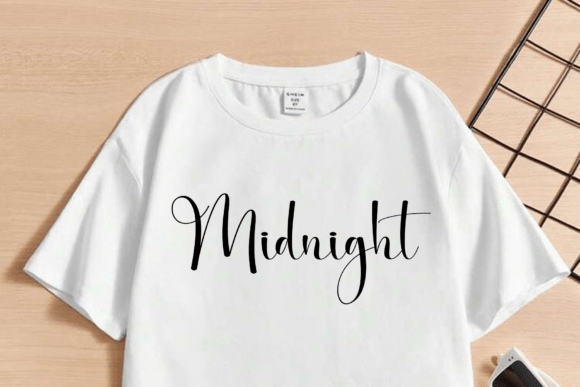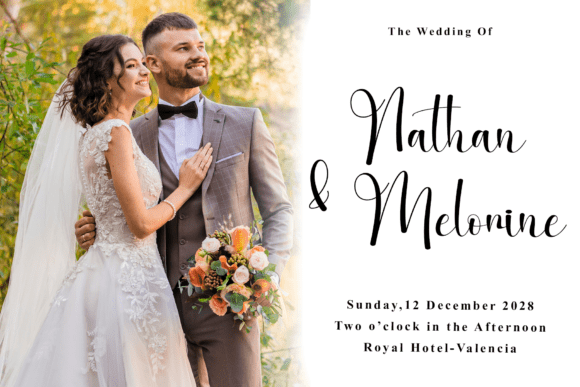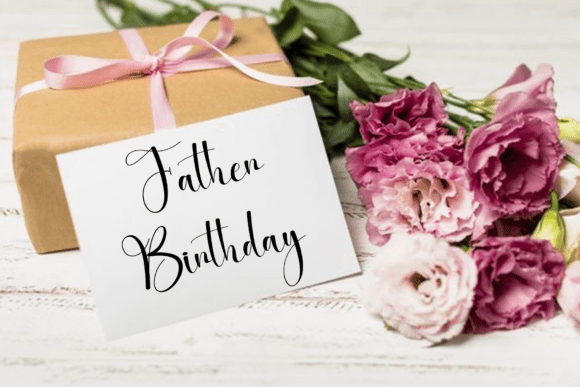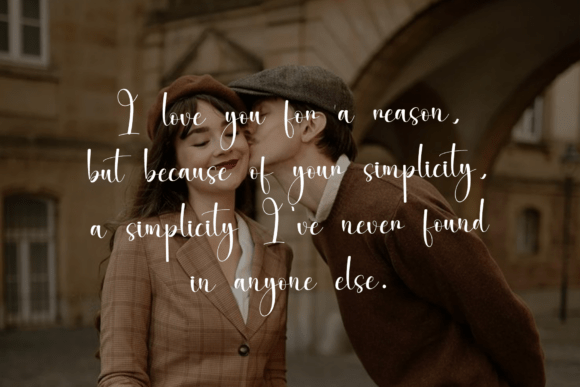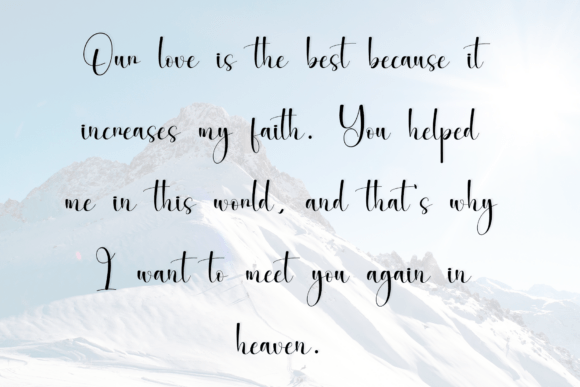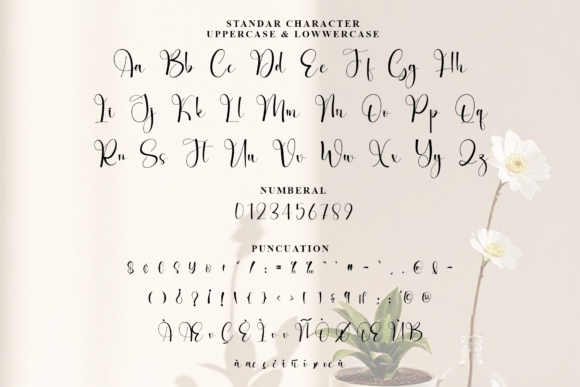
Bridgerton Font: Elevate Your Designs with Luxurious Elegance
In the world of typography, few fonts capture the essence of luxury and sophistication as breathtakingly as the Bridgerton Font. This stunningly elegant and highly refined modern handwritten script font is a masterpiece of professional artistry, designed to deliver a personalized touch that is ideal for high-end branding. With its dramatic contrast between thick downstrokes and delicate hairlines, beautifully integrated ligatures and swashes, the Bridgerton Font is the epitome of typographic excellence.
The Characteristics of Bridgerton Font
The Bridgerton Font is characterized by its exquisite craftsmanship, which sets it apart from other script fonts. Its key features include:
- Dramatic Contrast: The font showcases a striking contrast between thick downstrokes and delicate hairlines, creating a sense of movement and fluidity.
- Beautiful Ligatures and Swashes: The Bridgerton Font boasts beautifully integrated ligatures and swashes that enhance its sophistication and elegance.
- Modern Handwritten Script: This font is a perfect blend of traditional calligraphy and modern script typography, making it highly versatile and adaptable.
Why Choose Bridgerton Font?
For designers and crafters looking to elevate their designs, the Bridgerton Font is an excellent choice. Here are some compelling reasons to choose this luxurious font:
- Luxurious and Personalized Touch: The Bridgerton Font adds a touch of luxury and sophistication to any design, making it perfect for high-end branding and creative projects.
- Professional Artistry: This font embodies the skill and craftsmanship of a professional calligrapher, ensuring that your designs stand out from the crowd.
- Versatility: The Bridgerton Font is highly versatile and can be used for a wide range of design applications, from logos and branding to packaging and advertising.
Applications of Bridgerton Font
The Bridgerton Font is suitable for a variety of design applications, including:
- Logo Design: Create stunning logos that exude luxury and sophistication.
- Branding: Elevate your brand’s visual identity with this elegant and refined font.
- Packaging Design: Add a touch of luxury to your packaging designs and make them stand out.
- Advertising: Use the Bridgerton Font to create eye-catching advertisements that capture the attention of your target audience.
Tips for Using Bridgerton Font
To get the most out of the Bridgerton Font, here are some tips to keep in mind:
- Use it Sparingly: Due to its luxurious and sophisticated nature, it’s best to use the Bridgerton Font sparingly to avoid overwhelming the design.
- Pair it with Neutral Fonts: Pair the Bridgerton Font with neutral fonts to create a striking contrast and enhance its elegance.
- Experiment with Ligatures and Swashes: Take advantage of the font’s beautifully integrated ligatures and swashes to add a touch of personality to your designs.
In conclusion, the Bridgerton Font is a stunningly elegant and highly refined modern handwritten script font that embodies professional artistry and luxury. With its dramatic contrast, beautifully integrated ligatures and swashes, and versatile nature, this font is perfect for designers and crafters looking to elevate their designs. Whether you’re working on a high-end branding project or a creative design application, the Bridgerton Font is sure to deliver a personalized touch that sets your designs apart.